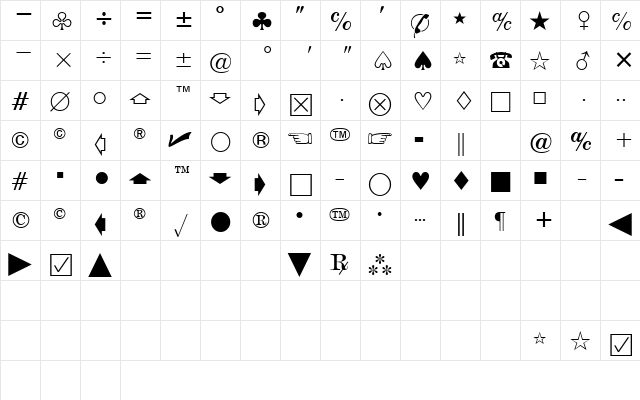
EisagoNewsSSK Regular Font Preview
EisagoNewsSSK Regular
Design Context for EisagoNewsSSK Typeface
EisagoNewsSSK is a composed and adaptable typeface that performs quietly and consistently across a wide range of design contexts.